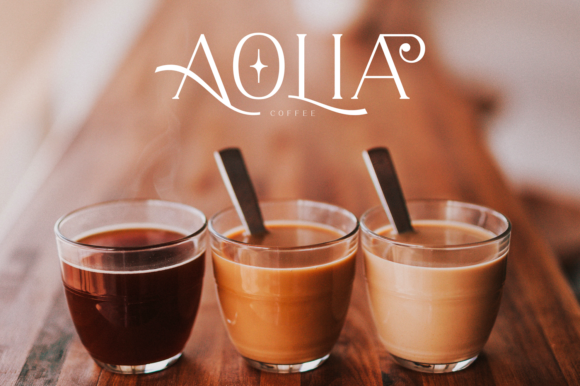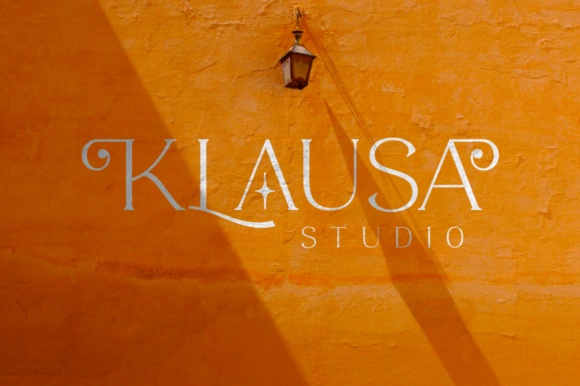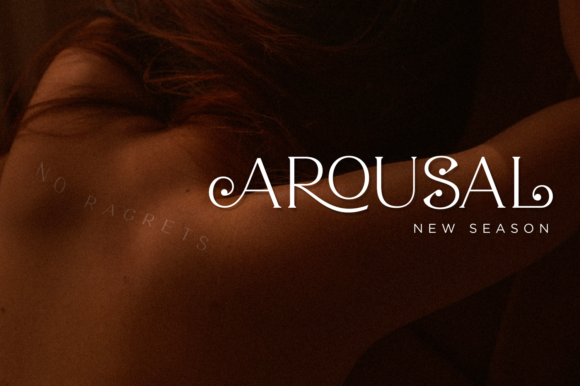
Introduction to Roast Font
Roast is a distinct and classic serif font.
It is elegant and features sharp letters, and as a result, it will easily match a wide range of creations that require a distinct touch .